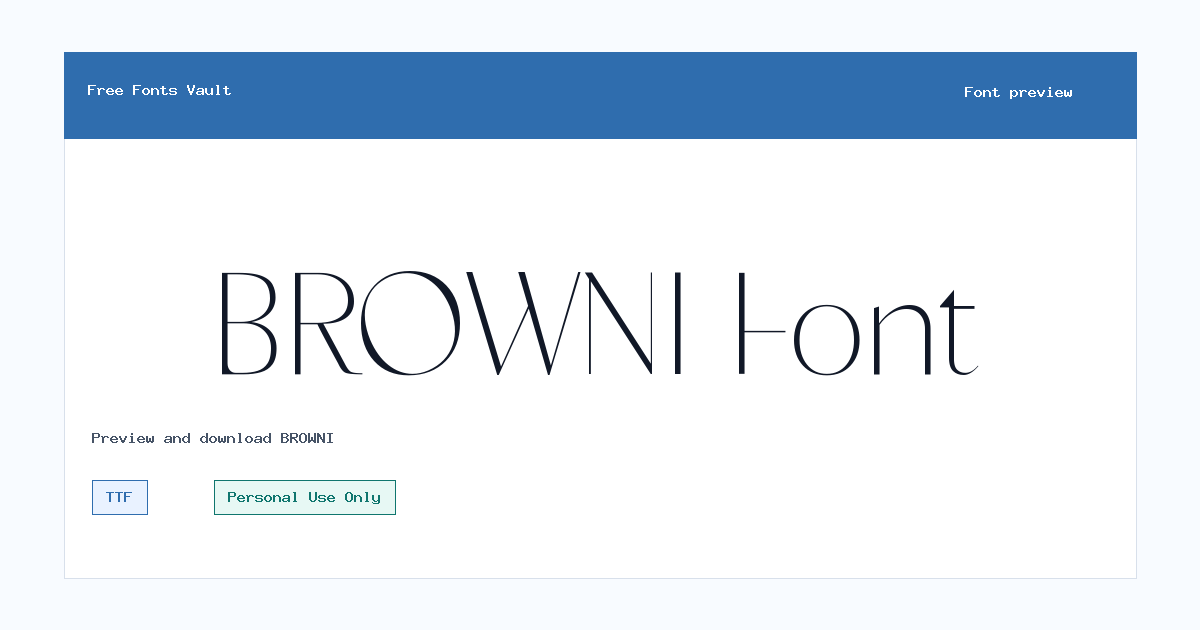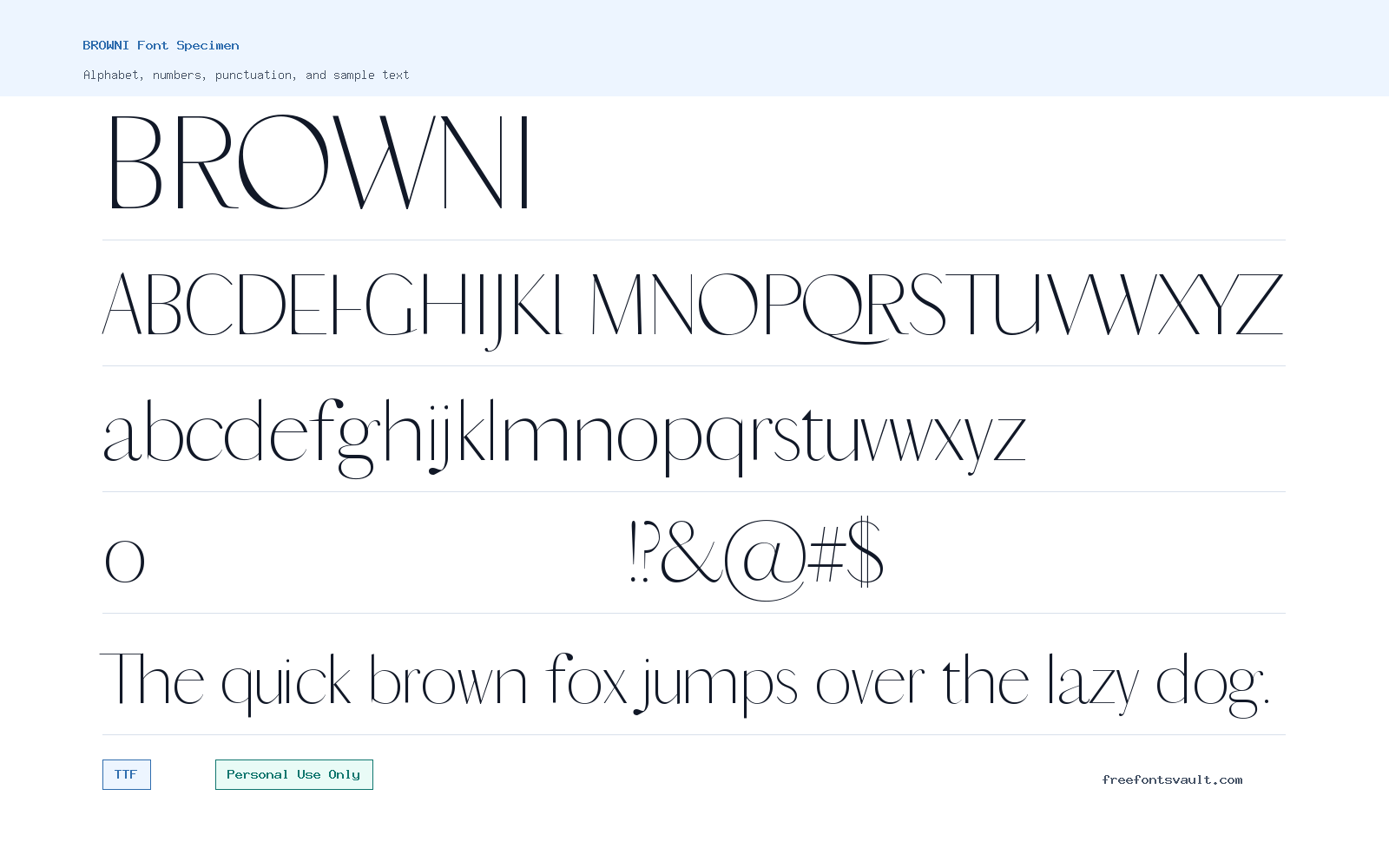
BROWNI
BROWNI font.
BROWNI is a sans serif font family with a regular TTF file, intended for personal-use projects. It is a practical choice to preview when you need clean lettering for short text, titles, or simple display work.
About BROWNI Font
BROWNI keeps the setup simple: one regular style in TrueType format. That makes it easy to test in most design apps, word processors, and browser-based preview tools. Because there is only a regular weight listed, it is best treated as a straightforward display or text option rather than a full branding system with bold, italic, and multiple weights. Try it first in the live preview with your own words, especially if you plan to use names, product labels, quotes, or social captions.
For design use, start with short lines where the letter shapes can stay clear. BROWNI may work well for personal posters, mood boards, school projects, hobby graphics, headers, simple thumbnails, and printable drafts. If you need longer paragraphs, test several sentence lengths before committing, because a single regular style gives you less hierarchy than a larger font family. Pair it with a quiet serif or neutral sans serif for body text, and avoid using too many decorative fonts around it. Keep spacing generous, check uppercase and lowercase combinations, and preview numbers or punctuation if they matter in your layout.
- Regular-weight sans serif style for clean short-text layouts
- Headings, simple labels, preview images, and short display text